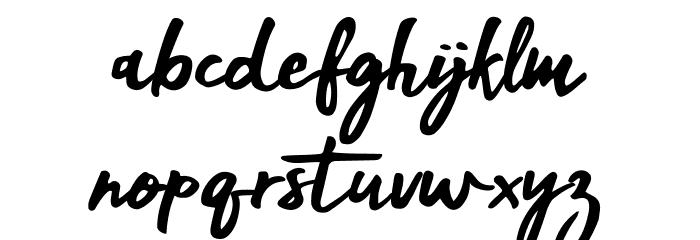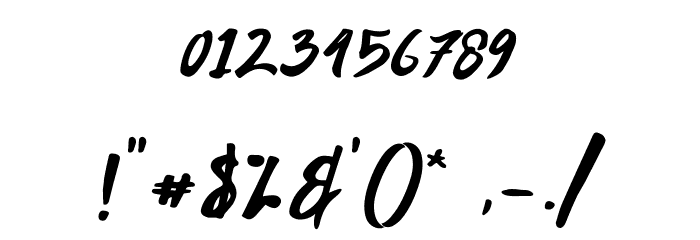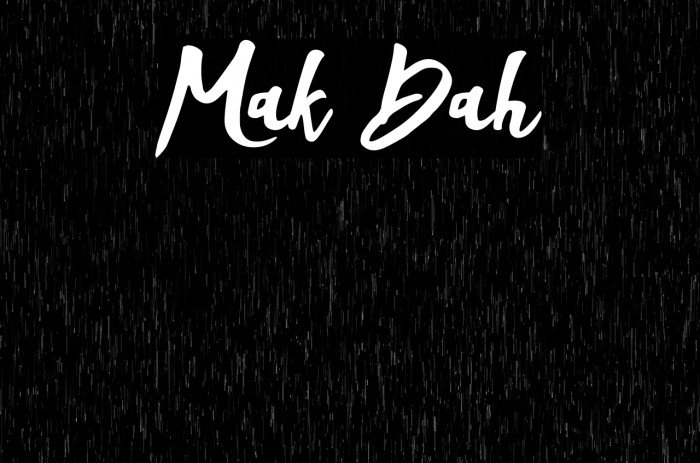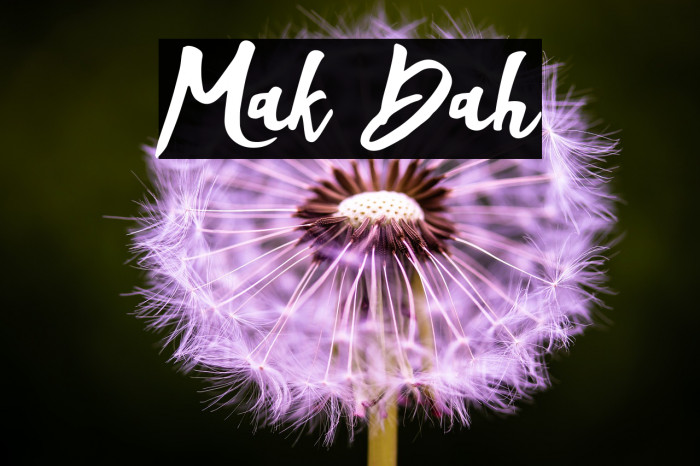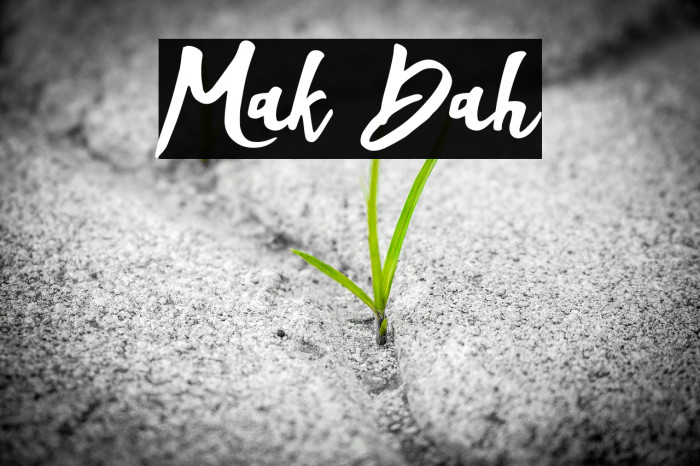
Mak Dah Font
This font features a bold, expressive script style with a dynamic flow and a sense of movement. The characters are interconnected, creating a cohesive and fluid appearance. The uppercase letters are particularly striking, with exaggerated curves and loops that add a touch of elegance and flair. The lowercase letters maintain a consistent style, complementing the uppercase with their own unique charm. The numbers and special characters are designed to match the overall aesthetic, ensuring a harmonious look across all text. This font is perfect for projects that require a personal, handwritten touch, such as invitations, greeting cards, or branding materials.
A bold, expressive script font with dynamic flow and elegant curves.
- Proposed Projects: Ideal for invitations, greeting cards, branding, and any project needing a personal touch.
- Category: Script
- Use Case: Logos, Headlines, Invitations